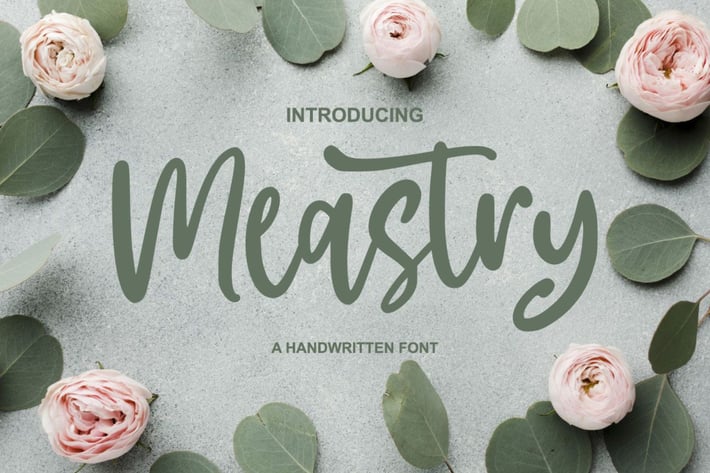
Meastry - A Handwritten Font
Introducing Meastry - A Handwritten Font
Meastry is the perfect font for all your fun designs. The main font file is equipped with ordinary characters. Everything is made with the funny brush. So you can be sure they will work well together! It is suitable for you to use in making t-shirt design, quote, label, packaging, logo type, or long writing. Because we have compiled kerning and matrices that are tailored to your needs.
Meastry features:
* Opentype Features (Contextual Alternates, Stylistic Sets and Ligatures)